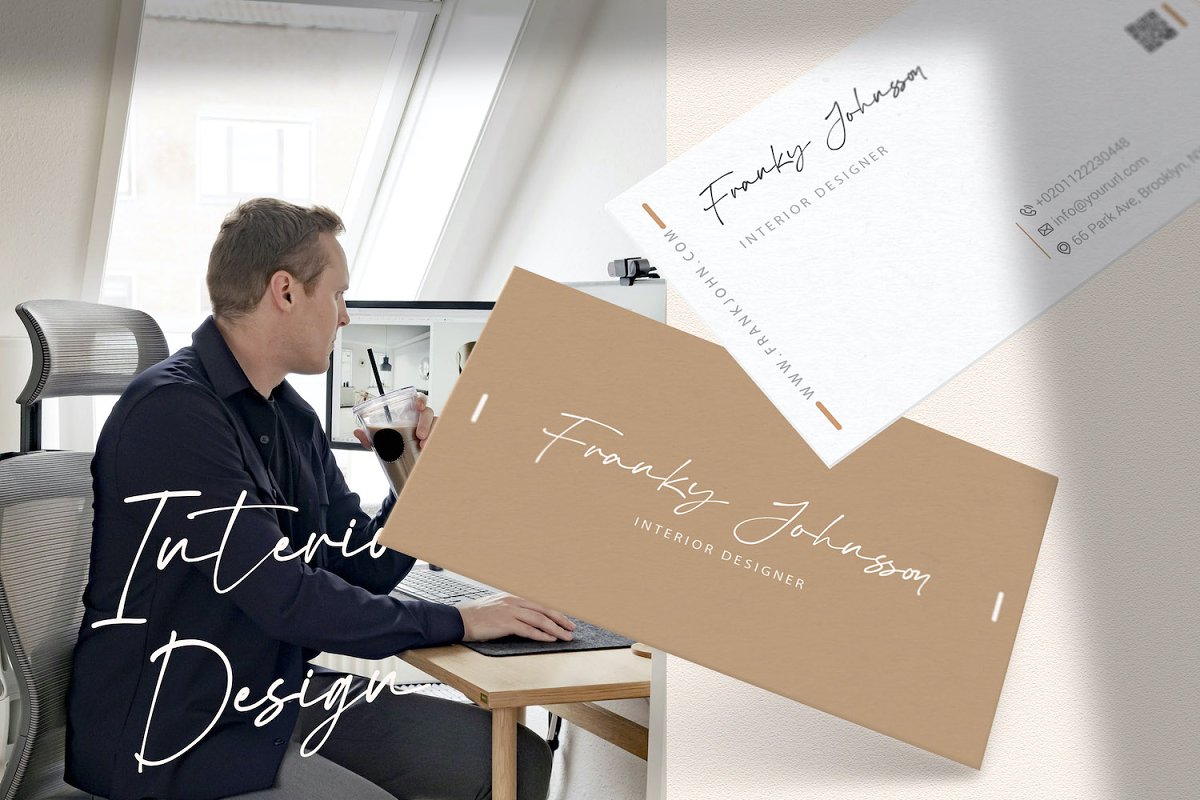
About the Virgi Theory Handwritten Font
Introducing Virgi Theory – Handwritten FontVirgi Theory is a delicate, elegant and flowing handwritten font, It has beautiful and well balanced characters and as a result, it matches a wide pool of designs, Add it to your most creative ideas and notice how it makes them come alive!FEATURESTTF/OTF/WOFF/WOFF2AlternatesLigaturesUppercase and Lowercase lettersNumbering and PunctuationsMultilingual SupportWorks on PC or MacSimple InstallationSupport Adobe Illustrator, Adobe Photoshop, Adobe InDesign, also works on Microsoft WordHope you Like it